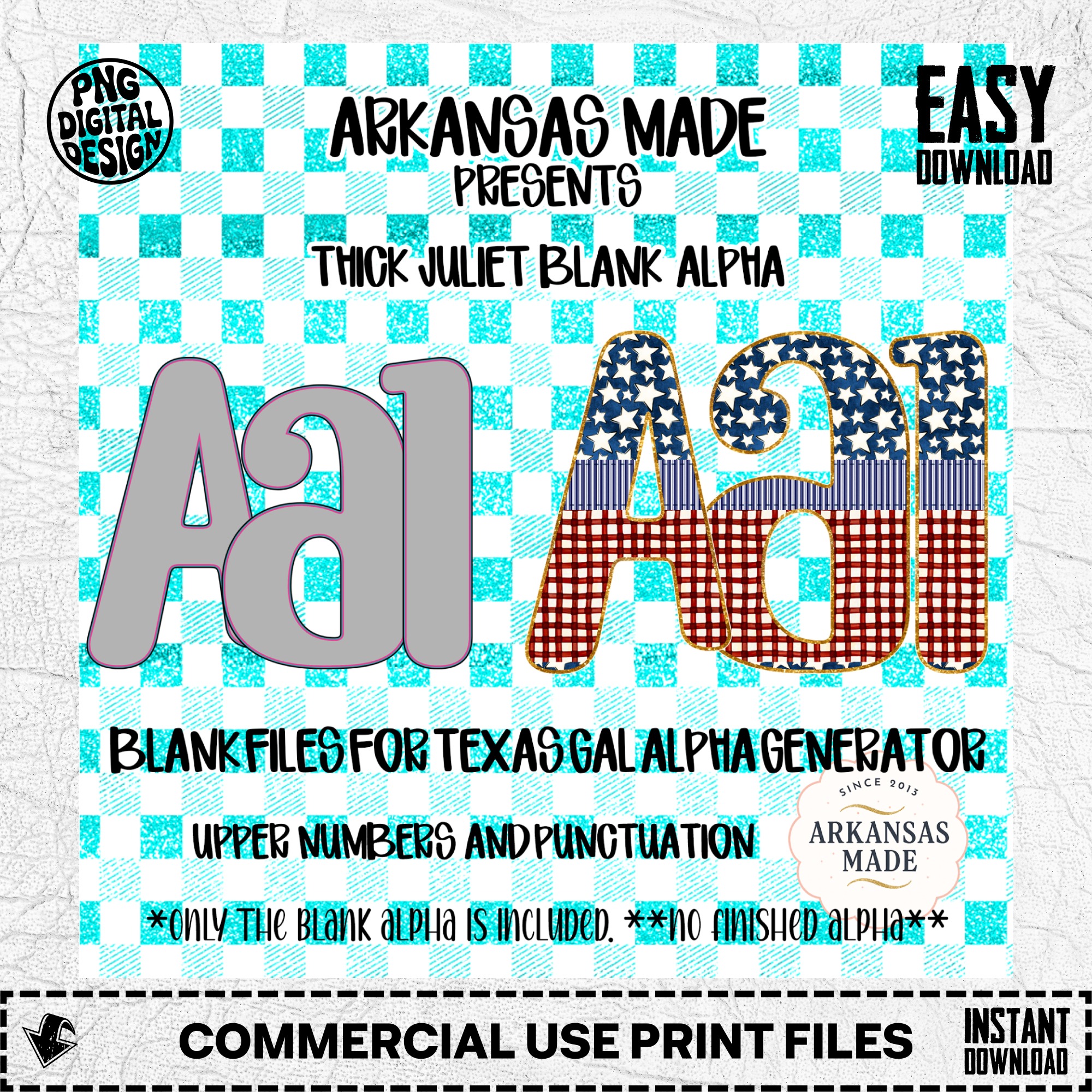
Thick Juliet Blank Alpha PNGs for Texas Gal Alpha Generator – Digital Download ABCs, Numbers, Punctuation. Crafting Font Files.
Unlock creativity with Thick Juliet Blank Alpha PNGs! Perfect digital download files for Texas Gal Alpha Generator, including letters, numbers, and punctuation. This versatile thick, rounded font offers endless possibilities for personalized crafts and designs. Ideal for DIY creators, sublimation projects, and small business owners creating custom apparel or unique gifts. Elevate your digital crafting projects with these essential, ready-to-customize alphabet files.